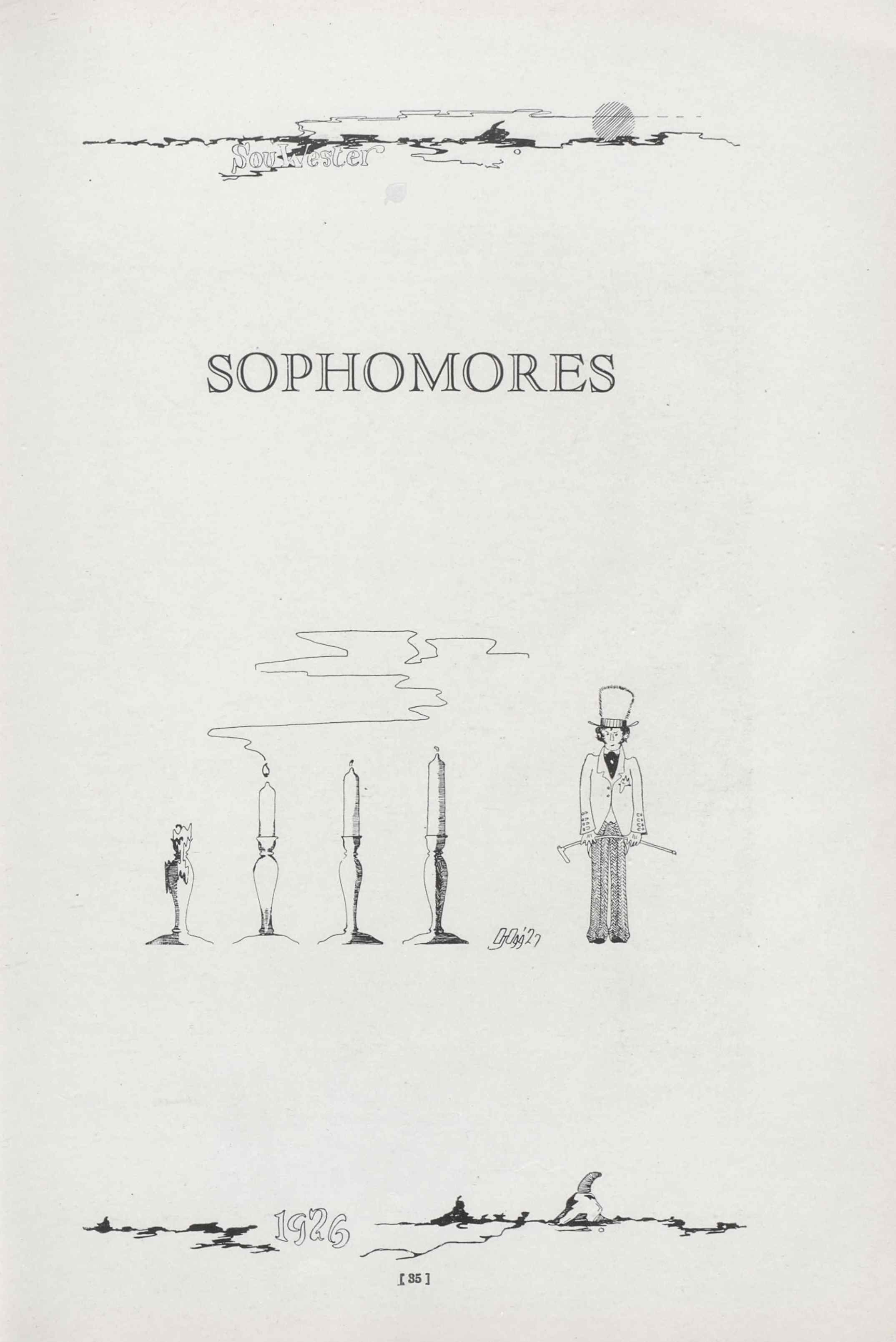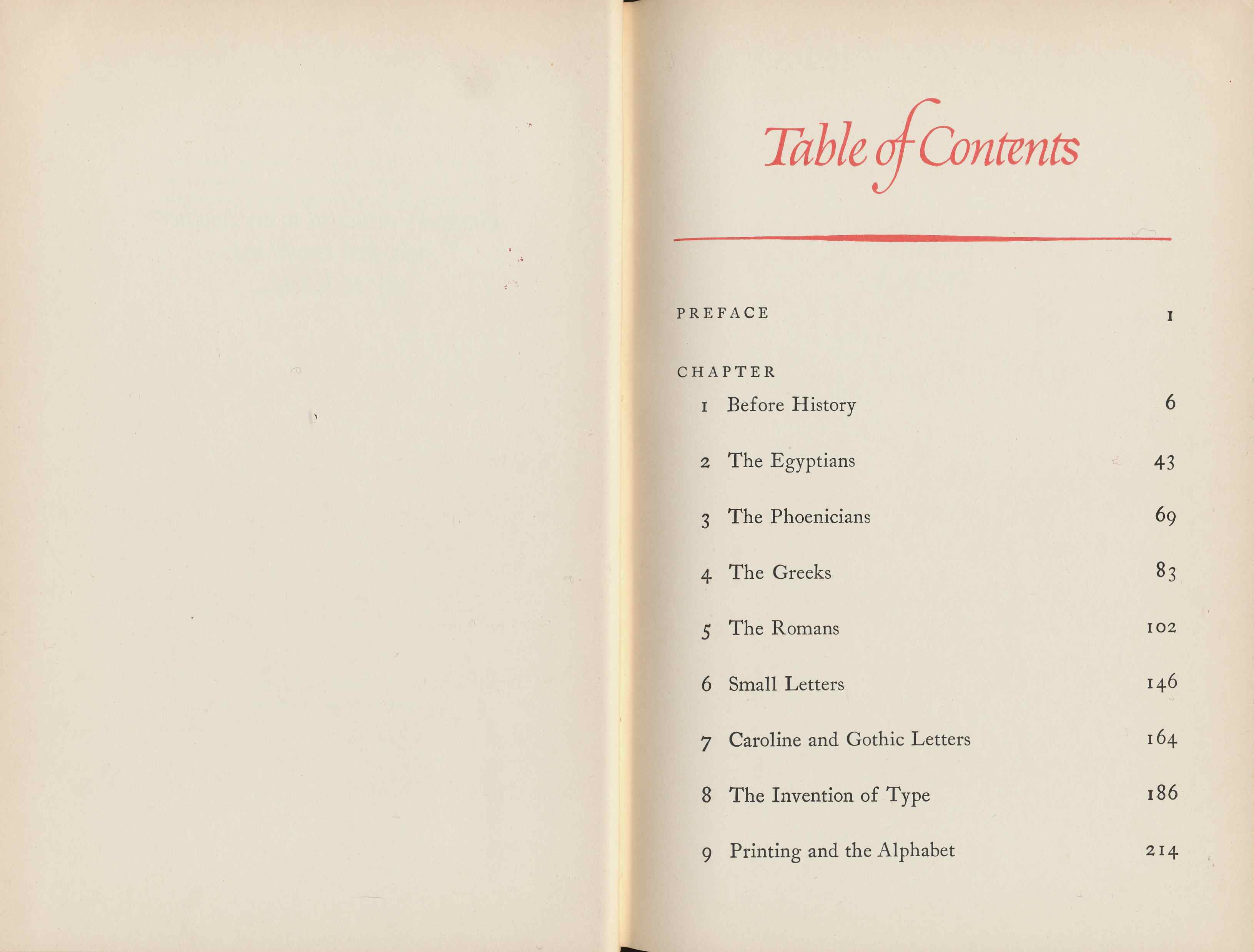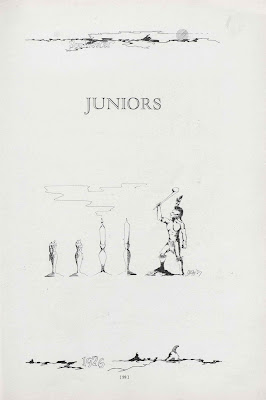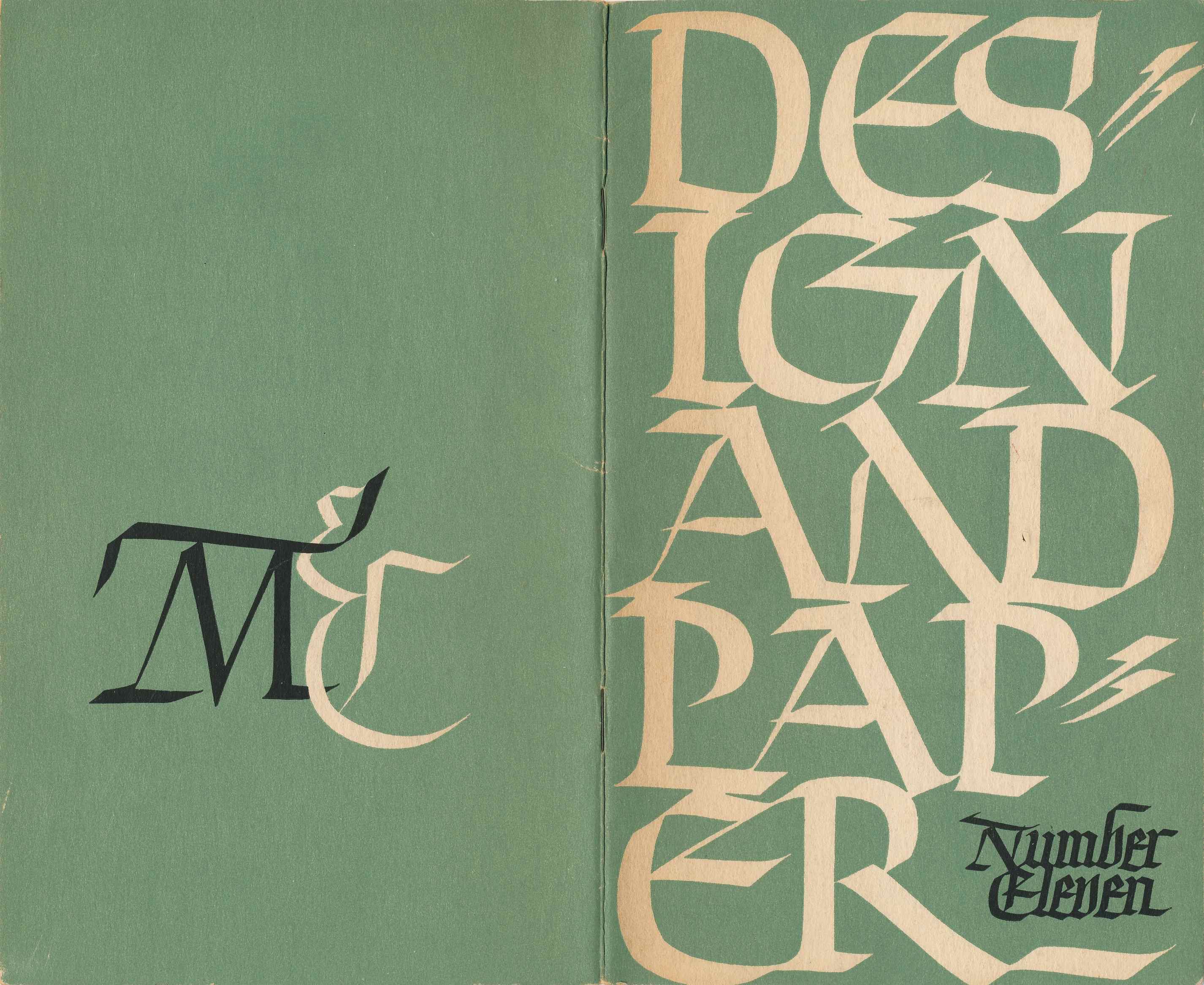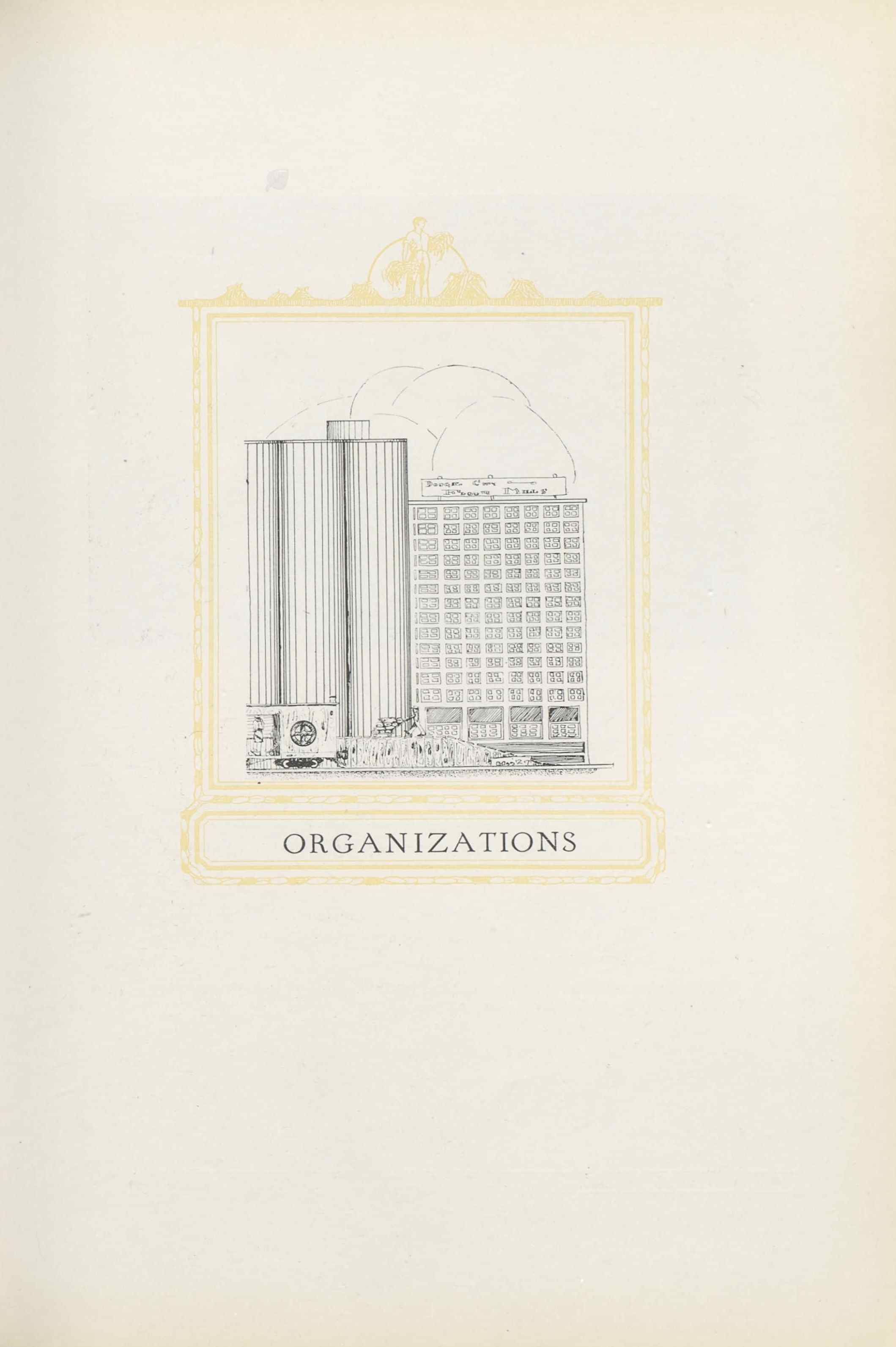
Lettering and Typography: Exclamation Point
February 15, 1913
Illustration by Carl Erickson
Official Gazette of the United States Patent Office
February 5, 1946
Official Gazette of the United States Patent Office
December 6, 1949
ex'cla-ma'tion by Coty, 1988
new ex'cla-ma'tion logo
Oatly!
Briefest Correspondence: Question Mark? Exclamation Mark!
Comics: Jon D'Agostino, Colorist, Artist, Inker and Letterer
John P. “Jon” D’Agostino was born Carlo D’Agostino on June 13, 1929, in Cervinara, Italy. D’Agostino’s birth information is from a transcribed death certificate at Ancestry.com. D’Agostino’s birth name was recorded on a passenger list.
On December 30, 1930, D’Agostino, his mother, Annunziata, and older siblings, Luigia and Giovanni, were aboard the S. S. Augustus when it departed Napoli, Italy. They arrived in the port of New York City on January 9, 1931. D’Agostino’s father, Pasquale, lived in Brooklyn at 144 Brookman Street.
D’Agostino’s father had emigrated earlier and was naturalized which made D’Agostino and his siblings United States citizens. D’Agostino’s mother was naturalized on February 7, 1944.
The 1940 U.S. Federal Census said D’Agostino, his parents and four siblings lived in Manhattan at 336 East 117 Street. D’Agostino’s father was a tailor of men’s clothing.
D’Agostino graduated from the School of Industrial Art in 1947. His classmates were Hal Fromm, Herbert Tauss and John Romita.
The Palette, 1947 School of Industrial Art Yearbook
On his blog, News from ME, Mark Evanier erroneously said D’Agostino graduated from the Industrial School of Art in Los Angeles. According to Evanier, D’Agostino got his start in comics as a colorist at Timely Comics which would become Marvel Comics. At some point he met Pat Masulli, another comic book colorist who later became editor at Charlton Comics.
Daily Argus (Mount Vernon, New York), November 1, 1950
According to the New York State Marriage Index, at Ancestry.com, D’Agostino and Egidia D’Onofrio married on November 26, 1955, in Mount Vernon, New York.
D’Agostino’s talents included pencilling, inking and lettering. Who’s Who of American Comic Books 1928–1999 has an overview of his comics career. The Grand Comics Database lists many of D’Agostino’s credits. Some of D’Agostino’s work can be viewed at the Internet Archive. At Marvel, D’Agostino was known as “Johnny Dee” who lettered several 1960s titles including The Amazing Spider-Man #1 (March 1963).
The Amazing Spider-Man #1 splash page at Heritage Auctions
Captain Atom #82, September 1966
In Alter Ego #26, July 2003, Joe Sinnott was interviewed by Jim Amash. Below is a brief excerpt.
Sinnott: … But in those days, you had to knock the stuff out in order to make a living. I’s pencil a page in the morning and ink it in the afternoon. After supper, I’d ghost a couple of Archie pages for Jon D’Agostino; I did that for a number years. I was also doing covers for a crossword magazine publisher. I only had so much time to spend on the Marvel stuff, because I couldn’t give up my other assignments. Those people were depending on me, too. I used to juggle a lot of assignments.
JA: Jon D’Agostino still works for Archie Publications as an inker. What did you do for him?
Sinnott: I inked... everything but the faces, because Jon wanted it to look like his work. The pages weren’t easy, because there were always parties going on in the stories, balloons and confetti, and all those characters. It was time-consuming. Jon was a very good friend of mine. He lettered all the stories I did for Treasure Chest. He was a great letterer, but then he got into inking.
Top Dog #10, October 1986
In the 1950s, D’Agostino resided in Ansonia, Connecticut. The 1959 directory listed his address as 12 Evelyn Road and occupation as artist at Charlton Press. The 1960 directory said he moved to Seymour, Connecticut. The 1965 directory, below, listed D’Agostino as a partner in Giordano & D’Agostino, a commercial art studio in Ansonia at 100 Main Street. His partner was Dick Giordano. The 1983 directory said D’Agostino was a commercial artist at 161 Benz in Ansonia.
D’Agostino’s first marriage was to Jean D’Onofrio in 1955. She passed away in 1992. D’Agostino married Vivi Testa in 1995.
D’Agostino passed away on either November 28 or 29, 2010, in Ansonia, Connecticut. He was remembered on page 64 of Life with Archie #6, February 2011, which has 28 as the day of death. The Connecticut Death Index, Social Security Death Index, and New Haven Register (Connecticut) said it was November 29. D’Agostino was laid to rest at Riverside Cemetery.
Typophiles, 1955
Book design
Art Direction, February 1957
American Artist, January 1958
Speedball advertisement
Art in America, No. 4 1959, Calligraphy
Elizabethan Lyrics from the Original Texts
Norman Ault, Editor
Capricorn Books, 1960
Cover design
Oscar Ogg
Thomas Y. Crowell Company, 1961
Seventh Printing
Girl From Fitchburg
Bernardine Kielty Scherman,
Random House, 1964
Jacket design
Oscar Ogg
Thomas Y. Crowell Company, 1971
Revised Edition